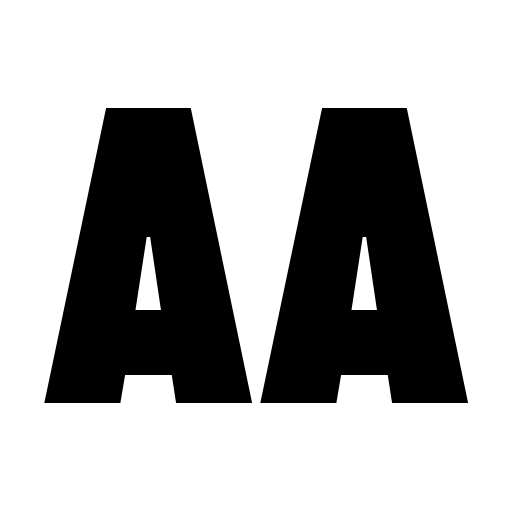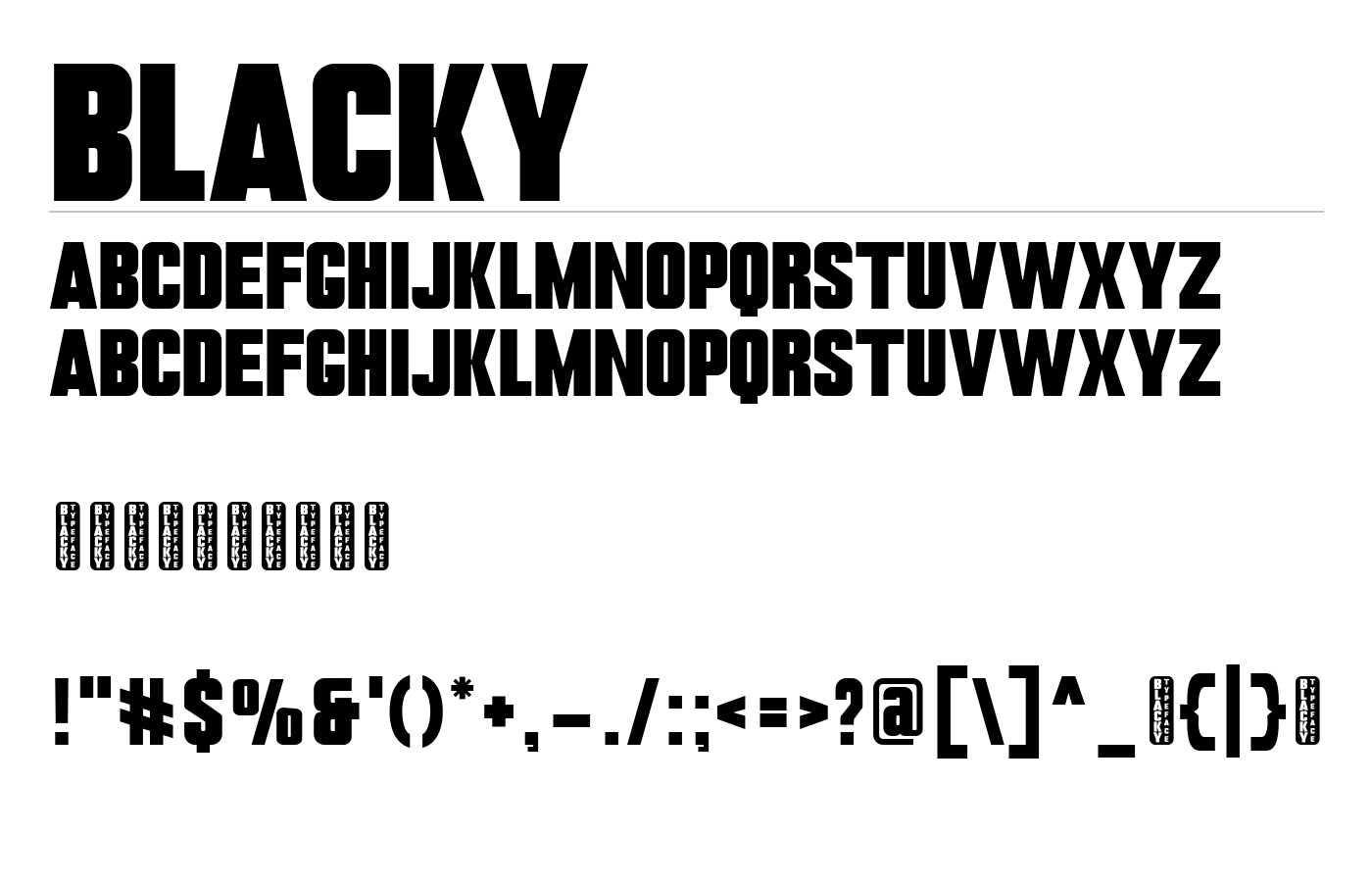
Blacky Font is a bold, condensed sans serif with a strong, commanding presence and sharp, geometric letterforms. Its heavy weight and tight spacing make it perfect for impactful headlines, logos, and branding that require a modern, powerful, and confident look. This font works especially well in contexts where attention and readability at large sizes are essential.
Blacky Font
About Blacky Font
| Font family | Blacky Font |
| Designer | Afdalul ZIkri |